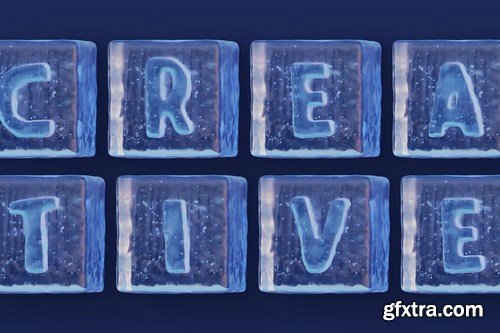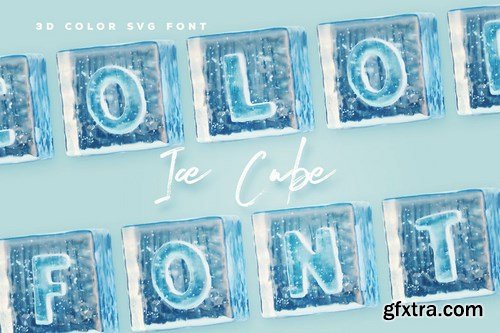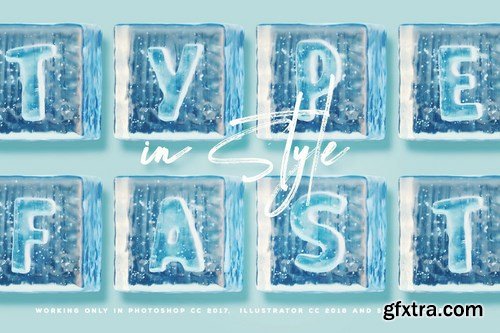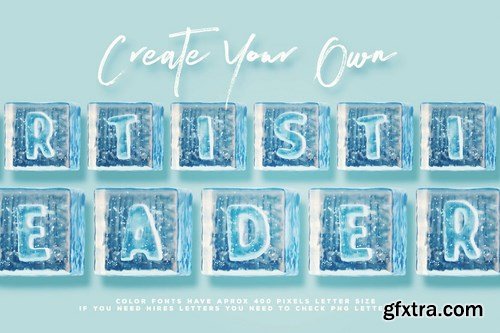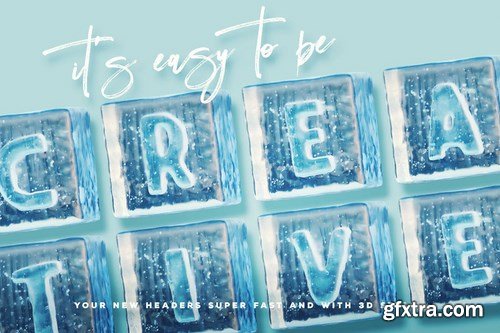
Color or SVG opentype font - ice cube or winter style 3d color svg font working only in Photoshop CC 2017+, Illustrator CC 2018 and some Mac apps! Instructions: Color or SVG fonts are pretty new technology – they currently show up in Photoshop CC 2017+, Illustrator CC 2018 and some Mac apps. Please setup fonts to smooth style if you see crispy borders on your color fonts in Adobe Photshop! be sure you'll create type area on whole window...if you can see some part of letters are outside this area you need to space it into area to see letters propertly! If you need realistic brush effect on SVG font please select : 1. dark font on light background - Multiply layer effect & 2. light font on dark background - Screen layer effect on font layer